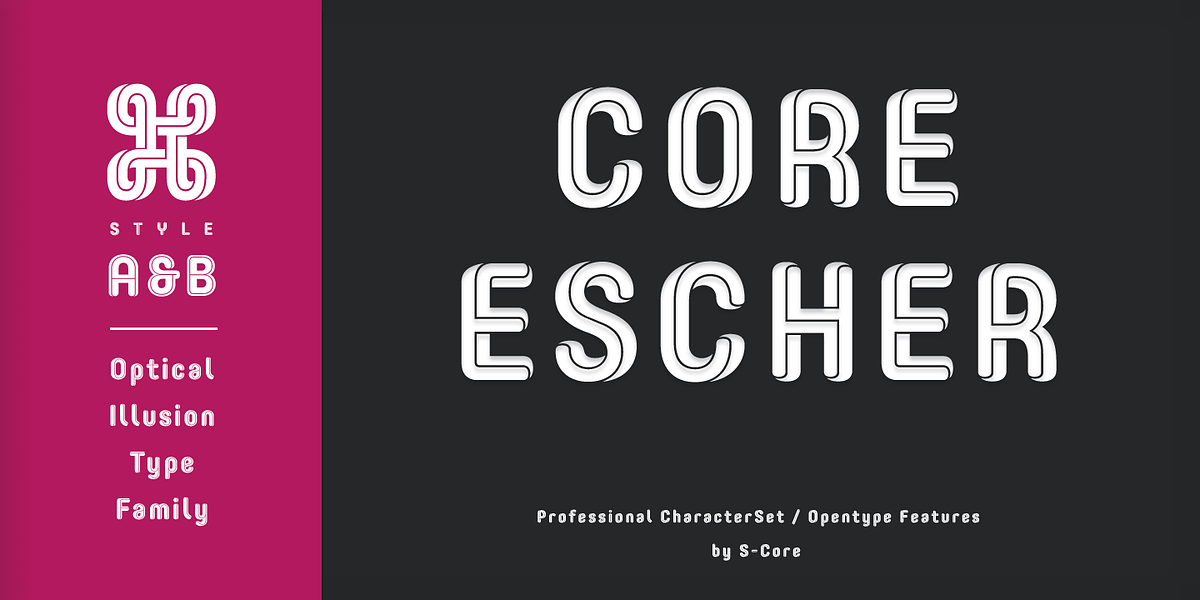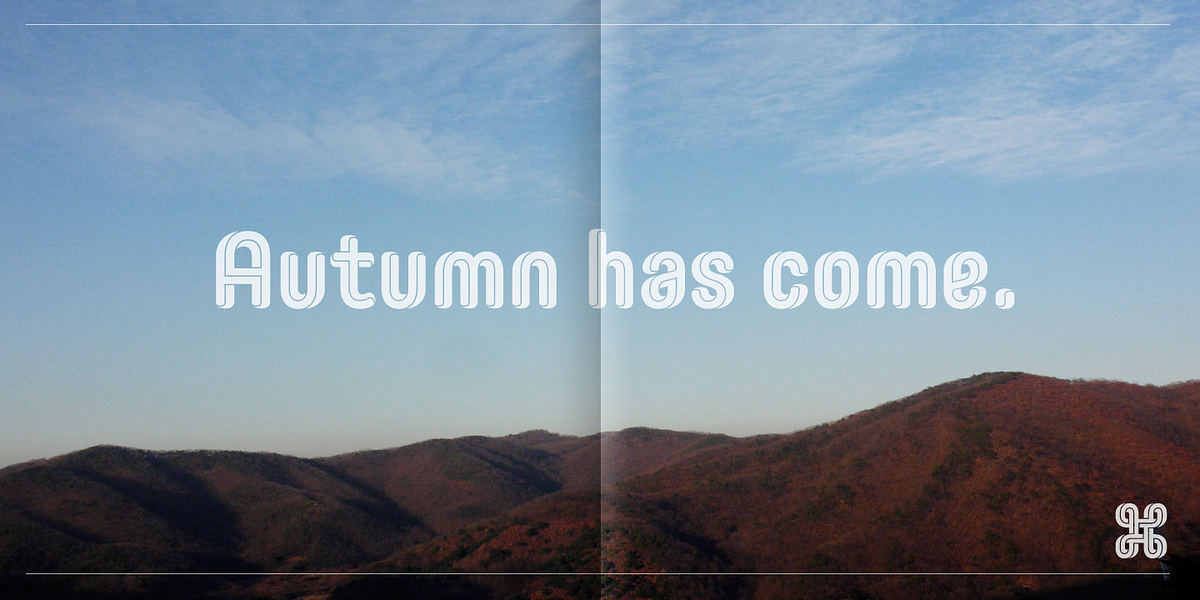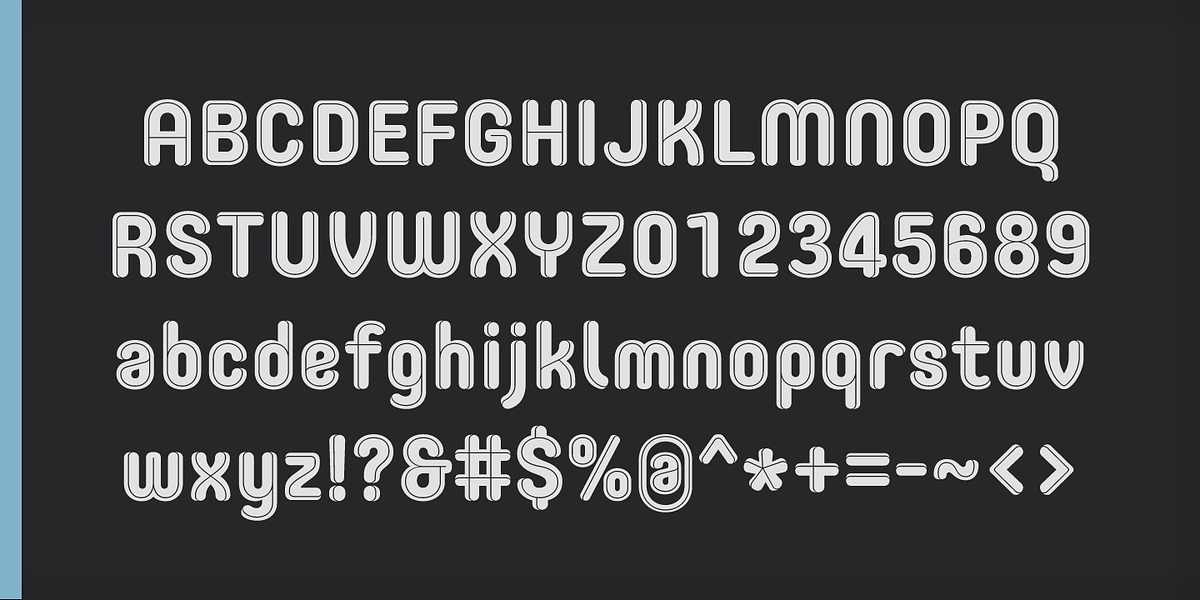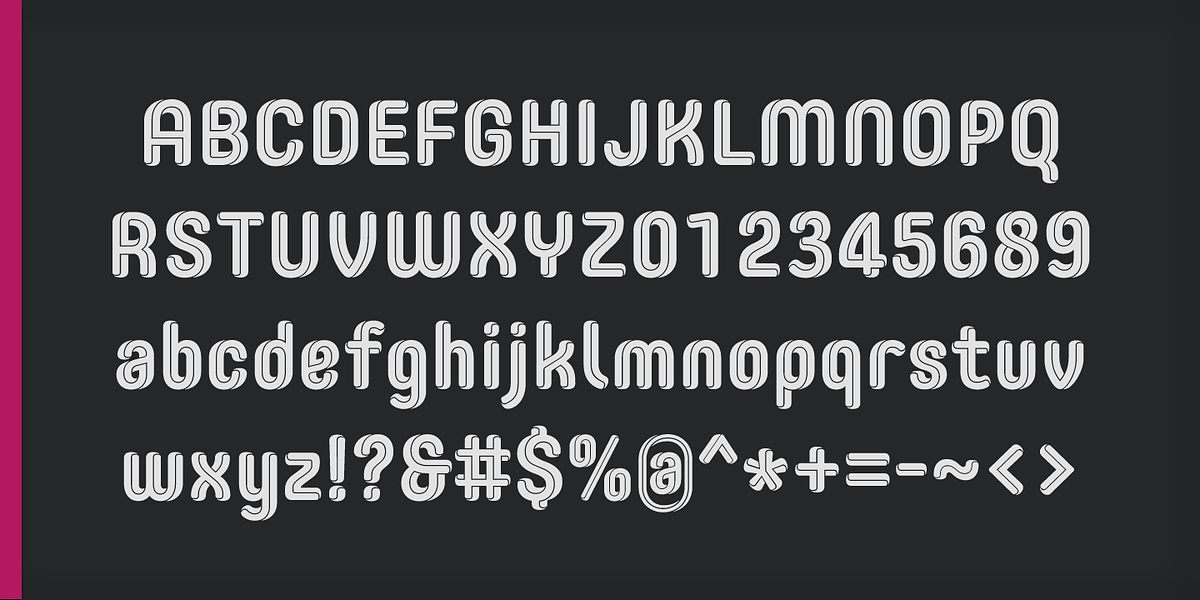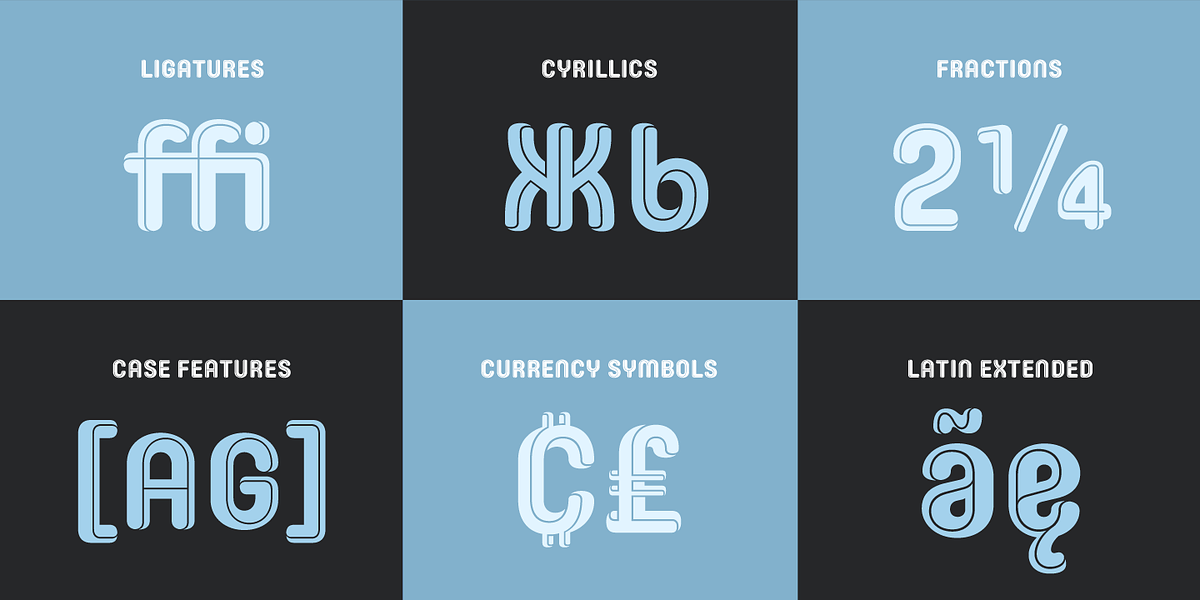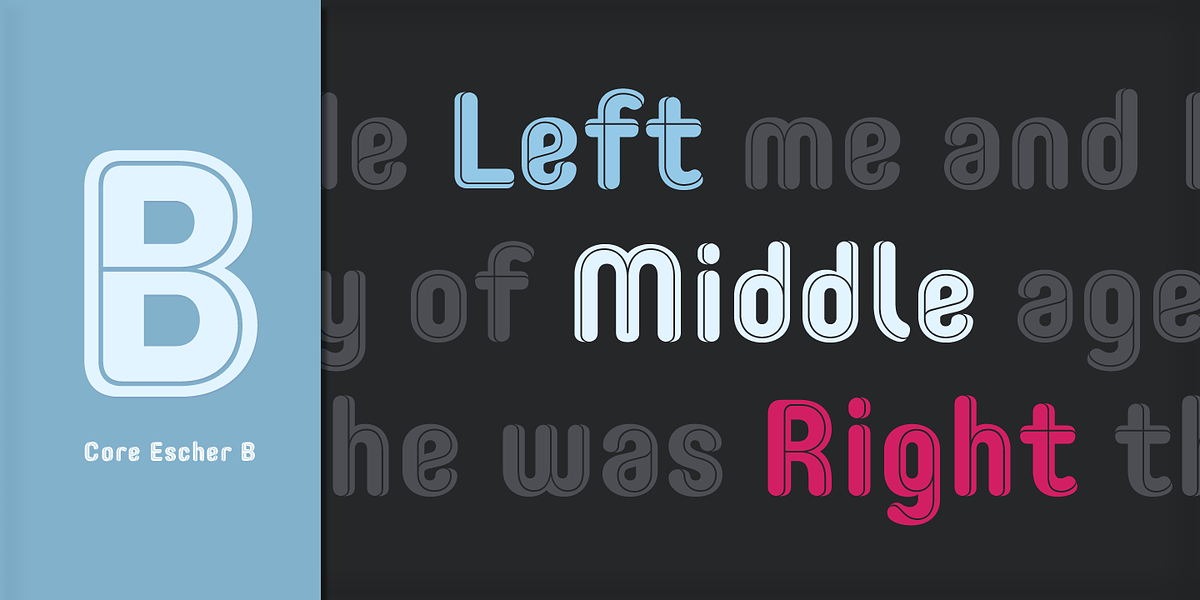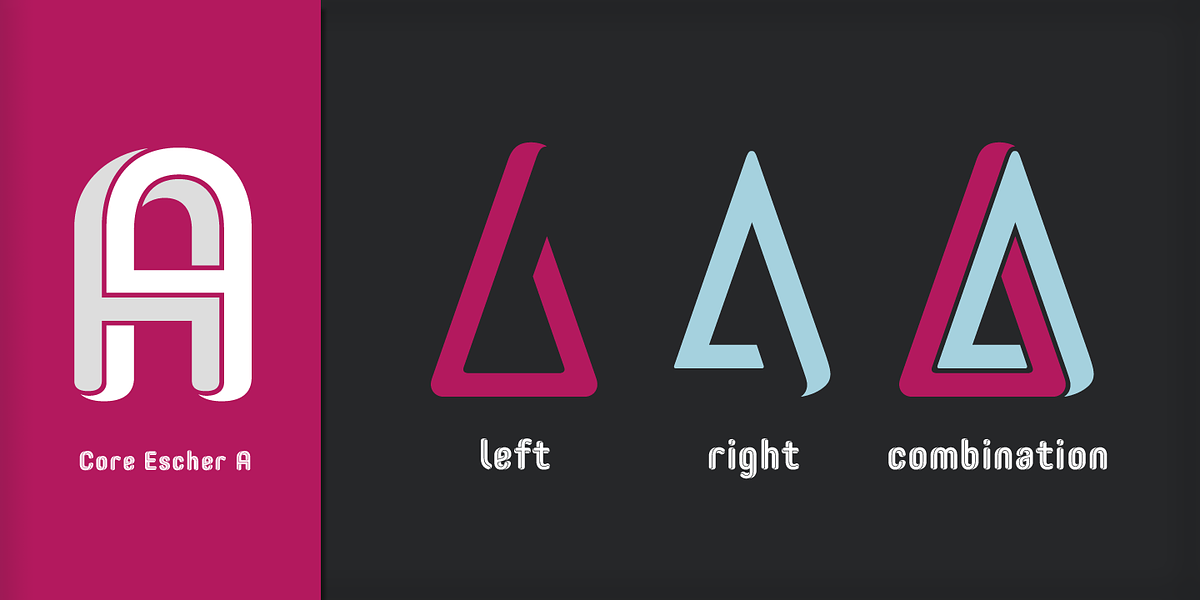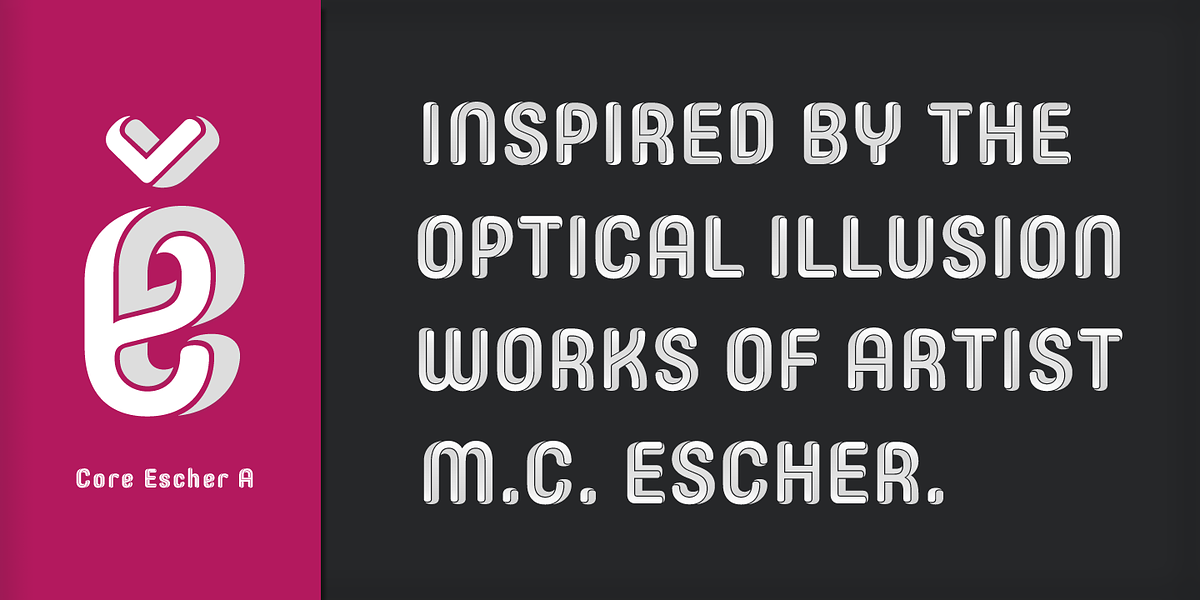
Core Escher
The Core Escher font family draws inspiration from the mind-bending optical illusions of artist M.C. Escher. It features two subfamilies: Core Escher A with impossible shapes and Core Escher B with a three-dimensional effect achieved through thin lines on bold letters. Both subfamilies offer unique perspectives, making them ideal for eye-catching applications like headlines, logotypes, book titles, and artistic endeavors.